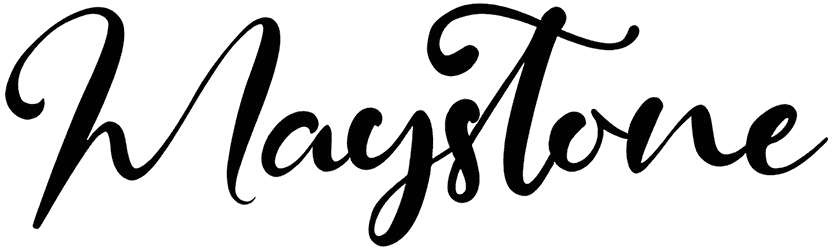
Maystone Font
Maystone is a sloping script font that you can use for all your advertising projects. This calligraphy font is challenging to read and can keep the audience focused on your design for a while.
The capital letters have strange and exaggerated curves, but there is simplicity in the creation of small letters. This exciting contrast in the design of letters has played a very influential role in making artworks such as book covers, wedding cards, and invitations more attractive.